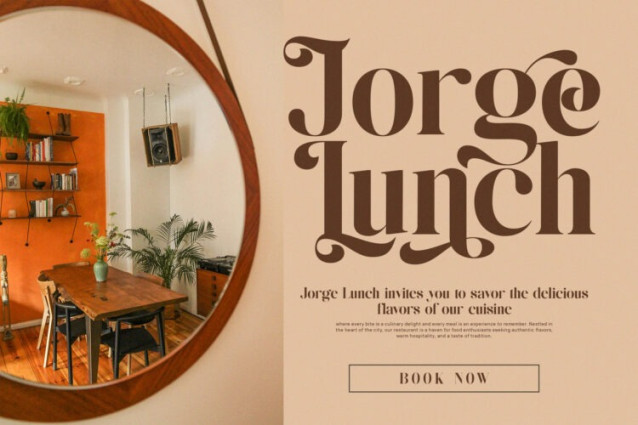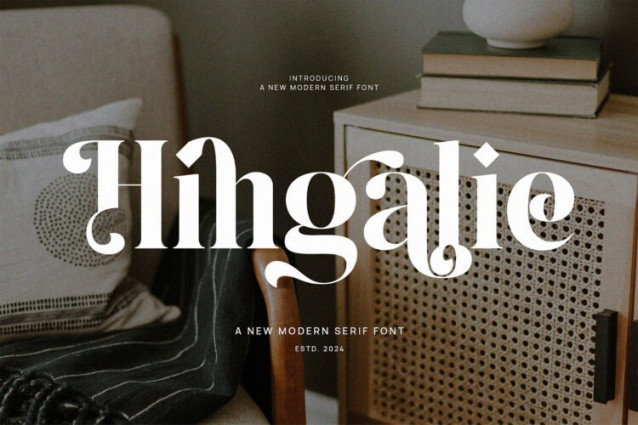
Hingalie Font
Hingalie Font, modern serif font with elegant style this is perfect for branding, logos, invitation, magazines, product packaging and more.